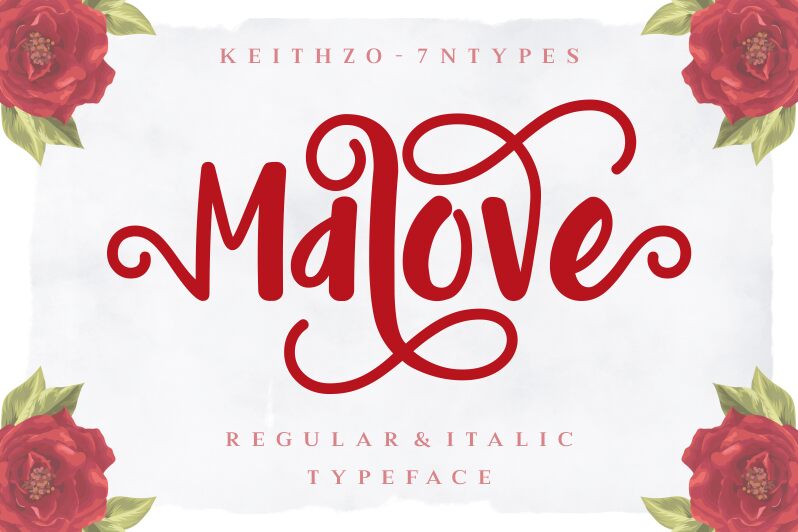
Malove Italic
Malove Italic, a smooth and captivating font created by the talented duo Keithzo and Situjuh Nazara of 7NTypes, exudes a refined and sophisticated elegance. Characterized by its delicate, brush-like strokes, this font radiates a sense of fluidity and movement, effortlessly blending traditional calligraphic influences with a modern sensibility. The Malove Italic typeface seamlessly balances the warmth of handwritten expression with the precise clarity of digital design, making it a versatile choice for a variety of creative projects.
The Malove Italic font's versatility shines through, adapting seamlessly to diverse design contexts. Its smooth, expressive lines lend themselves beautifully to headline treatments, editorial layouts, and branding applications, infusing a touch of elegance and refinement. Whether you're crafting a high-end magazine, designing a luxury product package, or curating a captivating social media presence, the Malove Italic font offers a sophisticated and impactful typographic solution.